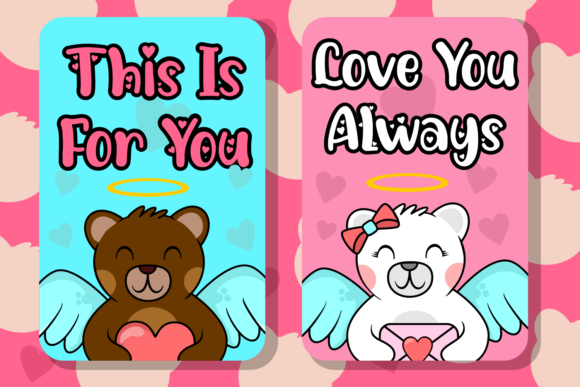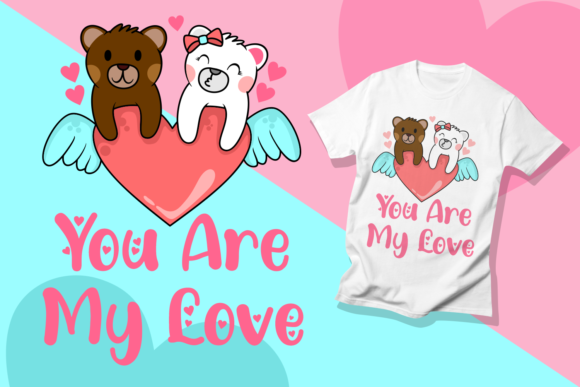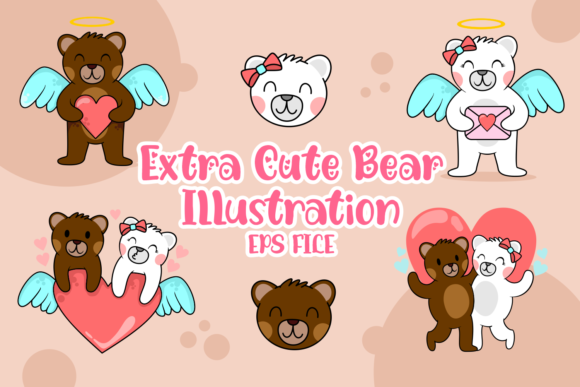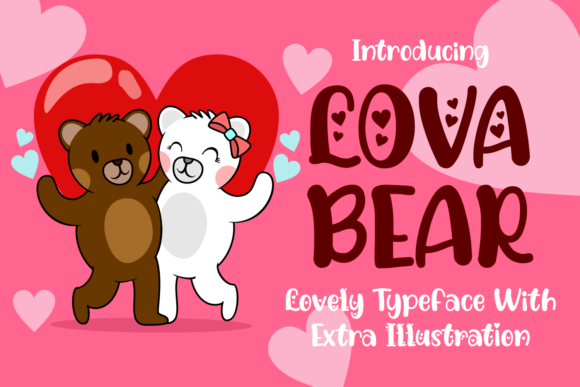
Introduction to Lova Bear Font
Lova Bear is a sweet, soft hand-lettered script.
The playful rounded characters make it the perfect font for creating stunning Valentine’s Day art Lova Bear comes packed with heart-themed letters, that will allow you to add a decorative touch within seconds.